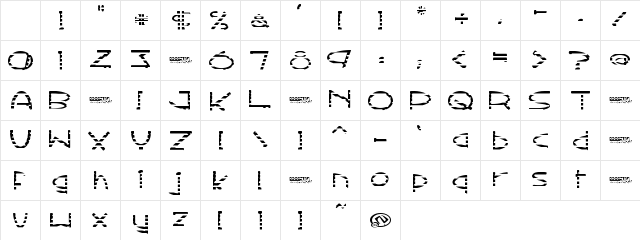
Complete Doggstar-warp Regular glyph index. Displaying only characters natively supported by Doggstar-warp Regular font.
Doggstar-warp is a composed and adaptable typeface that performs quietly and consistently across a wide range of design contexts.